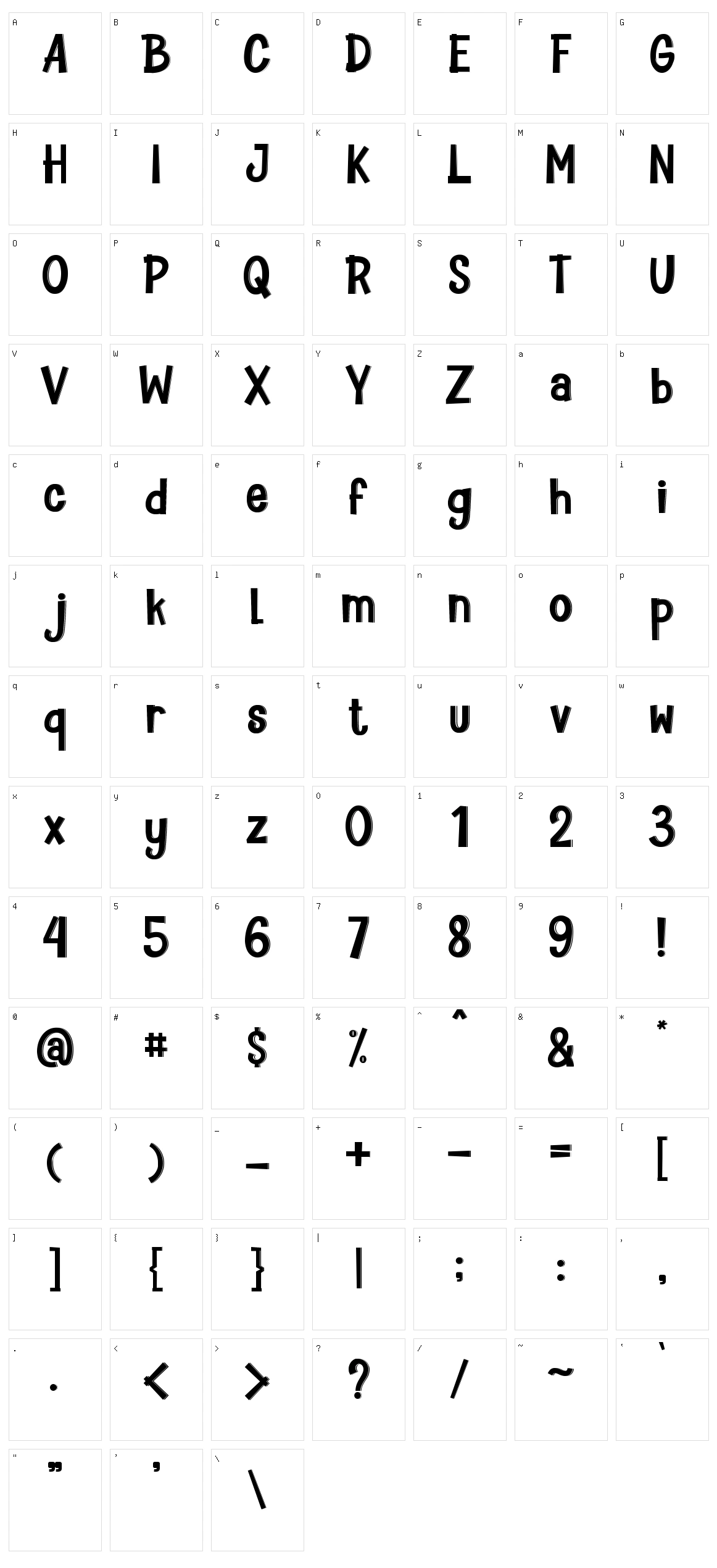
The free font Gett Well Soon is carefully designed by zainstudio, showcasing a thoughtful balance of creativity and usability and falls under the Cartoon font style. When you download the ZIP file, it contains only 43.25 KB of font files, making it lightweight and quick to download. Please review the license details below to understand permitted usage and distribution rights. If license information is not available, we recommend using this font for personal projects only or contacting the author directly for commercial usage permissions.